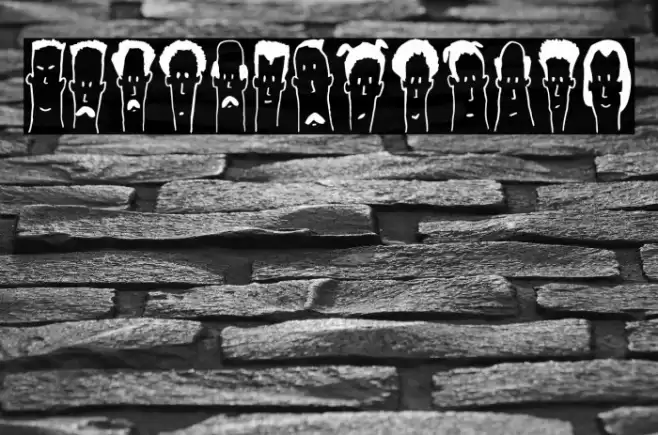
Headed Regular Font
Headed Regular Description
A highly decorative and whimsical font where each character is represented by a unique cartoon face with varied hairstyles and expressions, giving a playful and illustrative appearance.
Playful cartoon face font with each letter as a unique character from Dingbats fonts.
- Proposed Projects: Children’s books, party invitations, comic titles, playful branding, posters.
- Overall Style: Whimsical, Playful, Illustrative
- Use Case: Logos, Headlines, Posters, Children’s materials